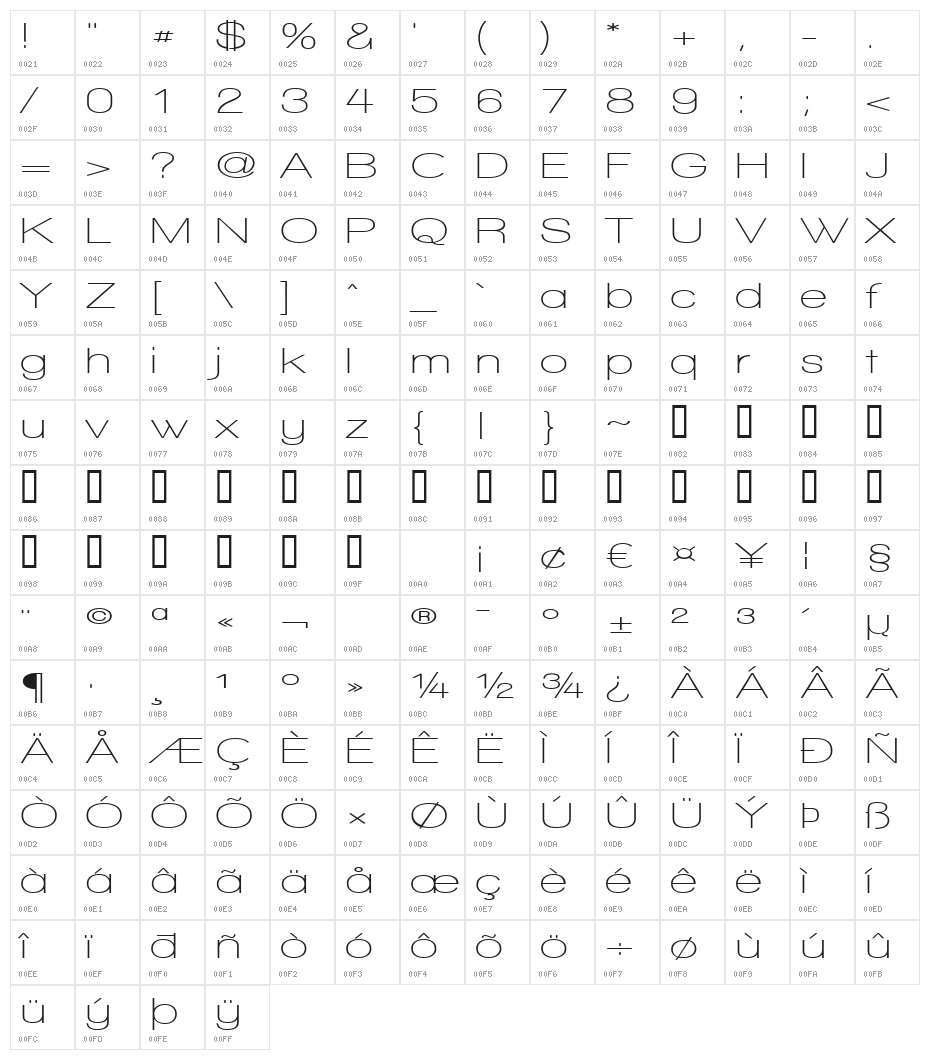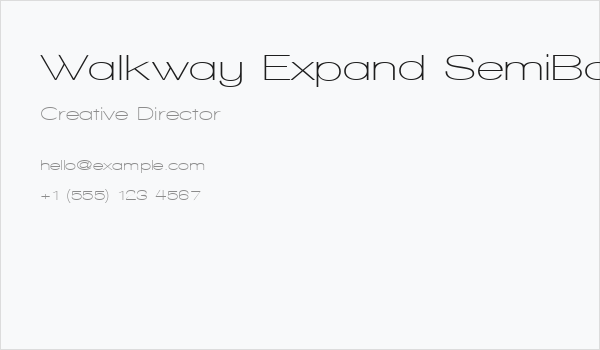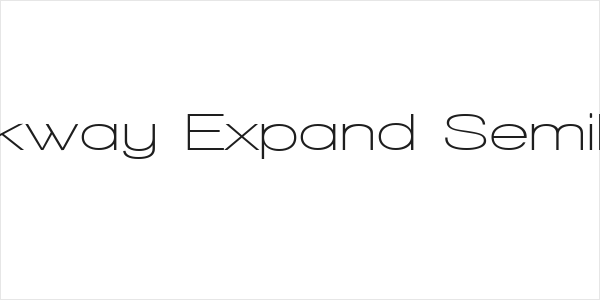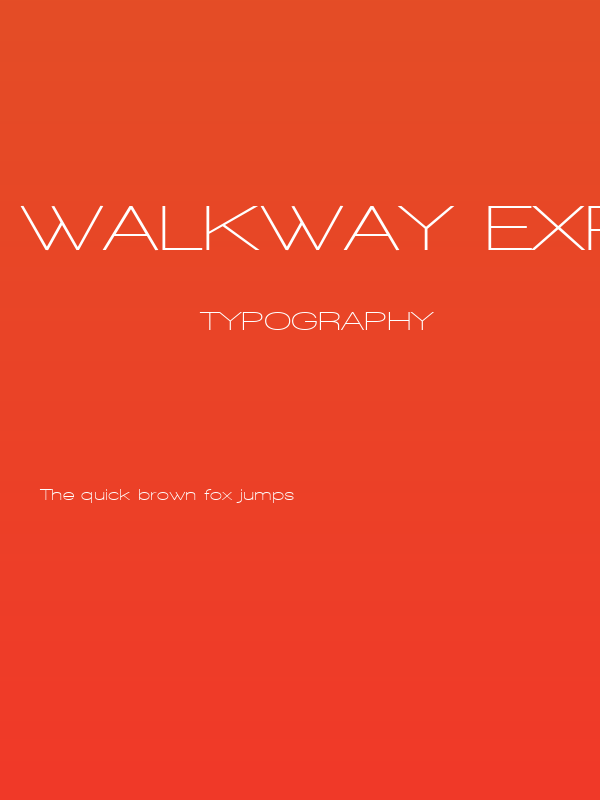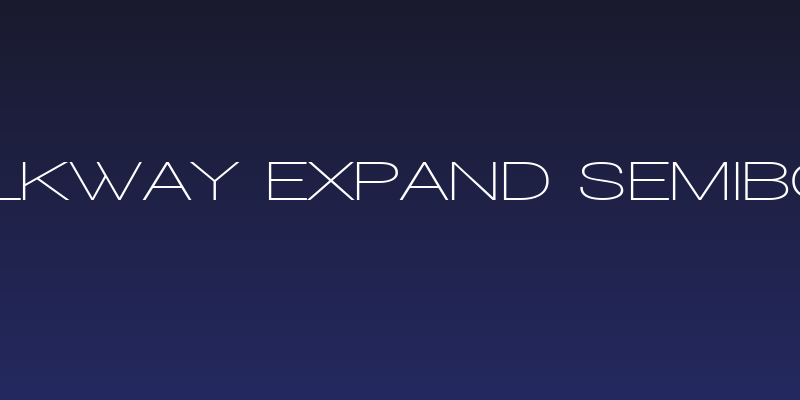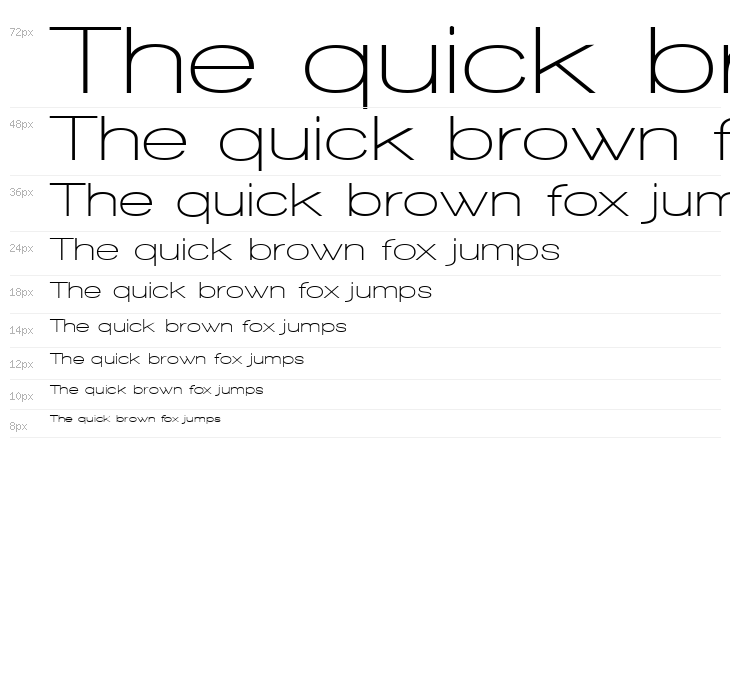
Walkway Expand SemiBold Font
Walkway Expand SemiBold Description
This font features a clean and modern design with an expanded width that gives it a spacious and open feel. The characters are crafted with a uniform stroke weight, providing a consistent and harmonious appearance. The geometric shapes and smooth curves contribute to its contemporary aesthetic, making it suitable for a variety of design applications. The uppercase and lowercase letters are well-balanced, and the numerals are clear and easy to read. The special characters maintain the same sleek style, ensuring a cohesive look across all text elements.
| Proposed Projects | Ideal for branding, advertising, and editorial design projects that require a modern and clean look. |